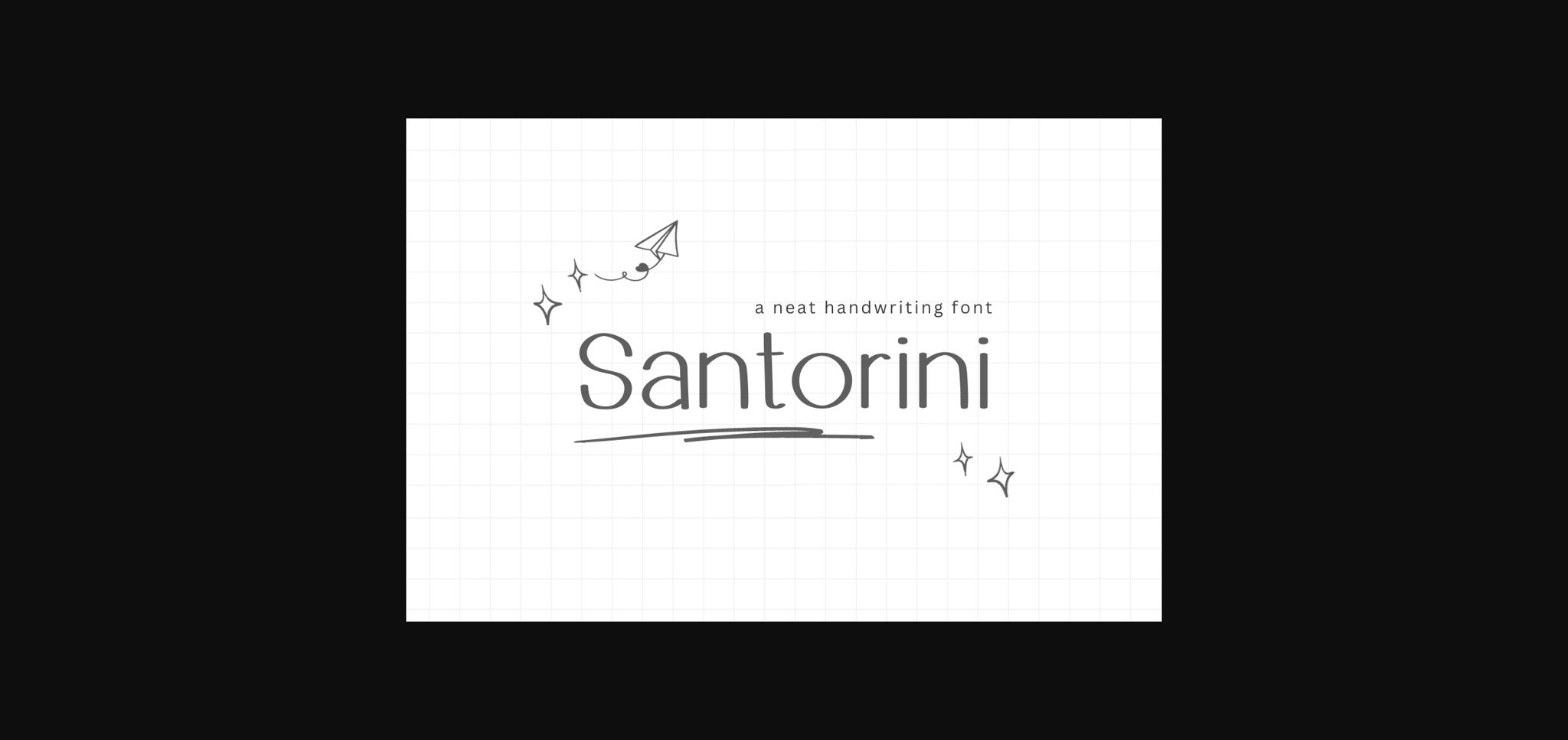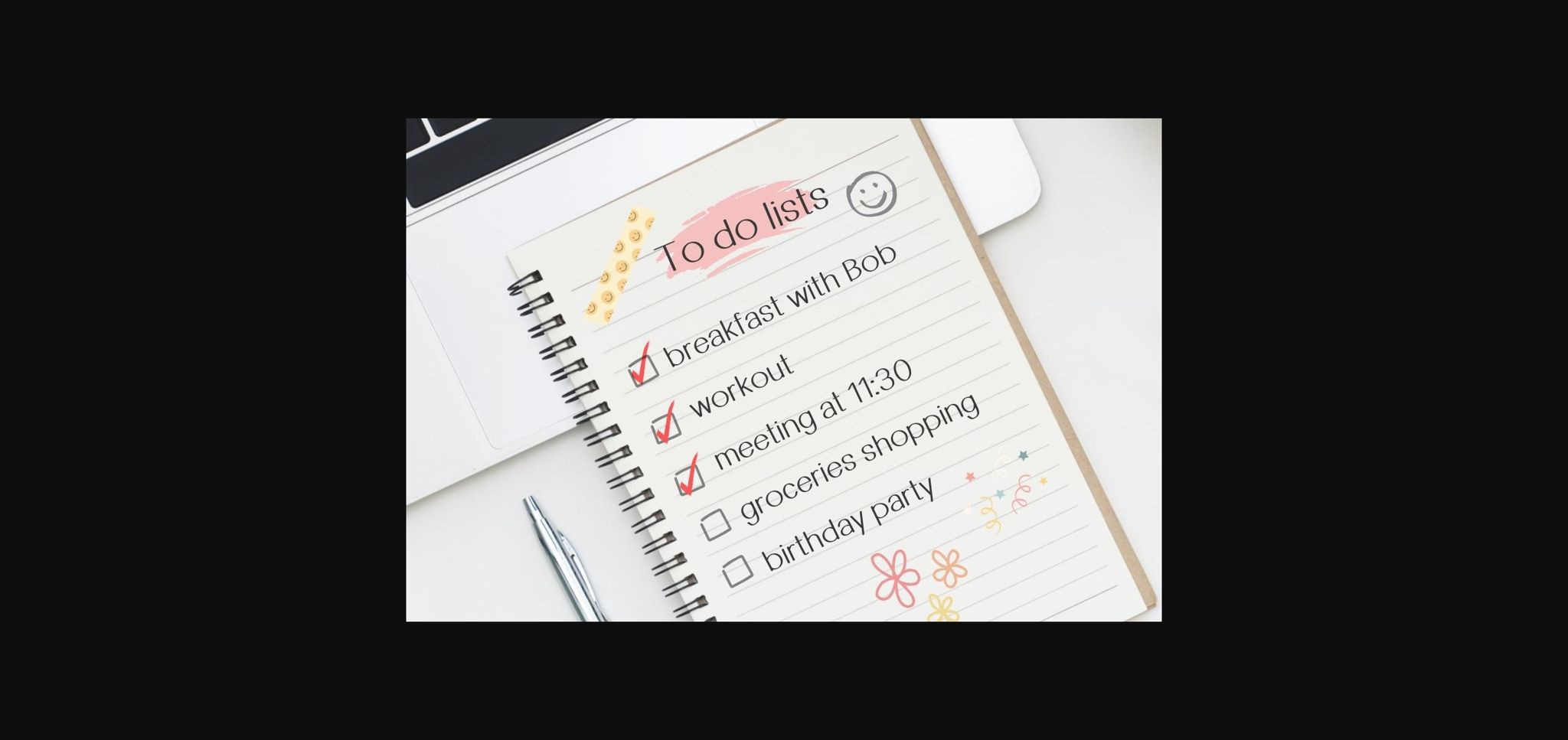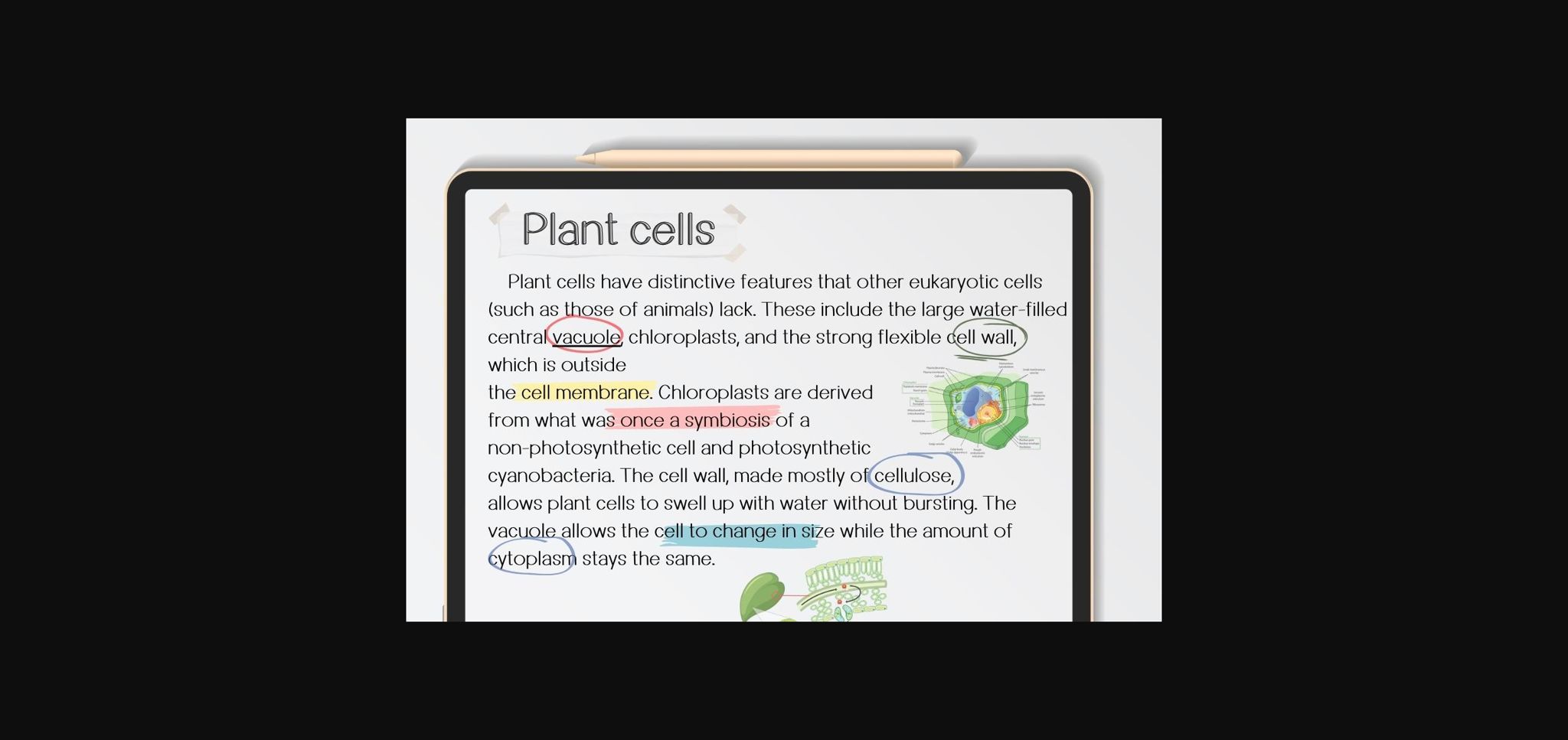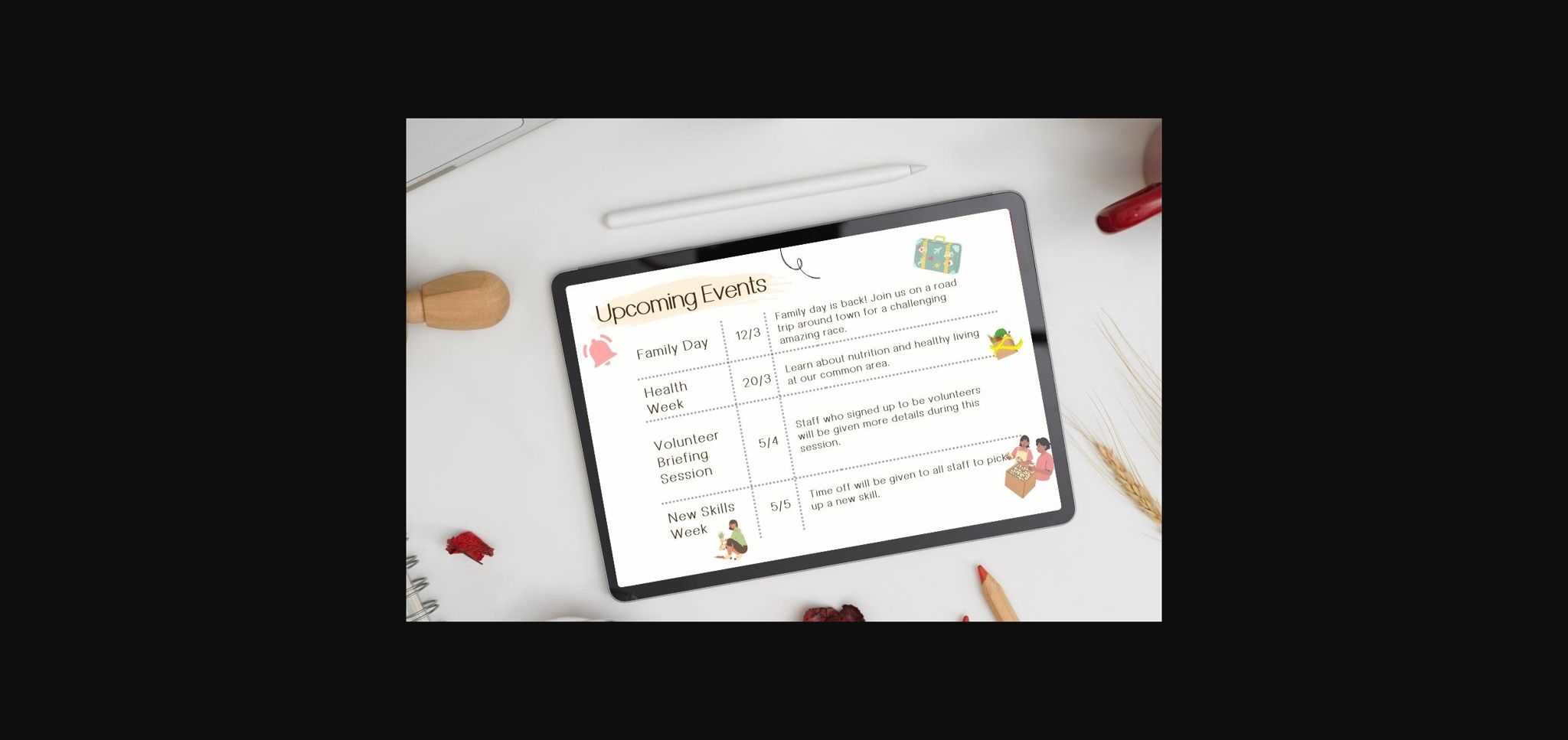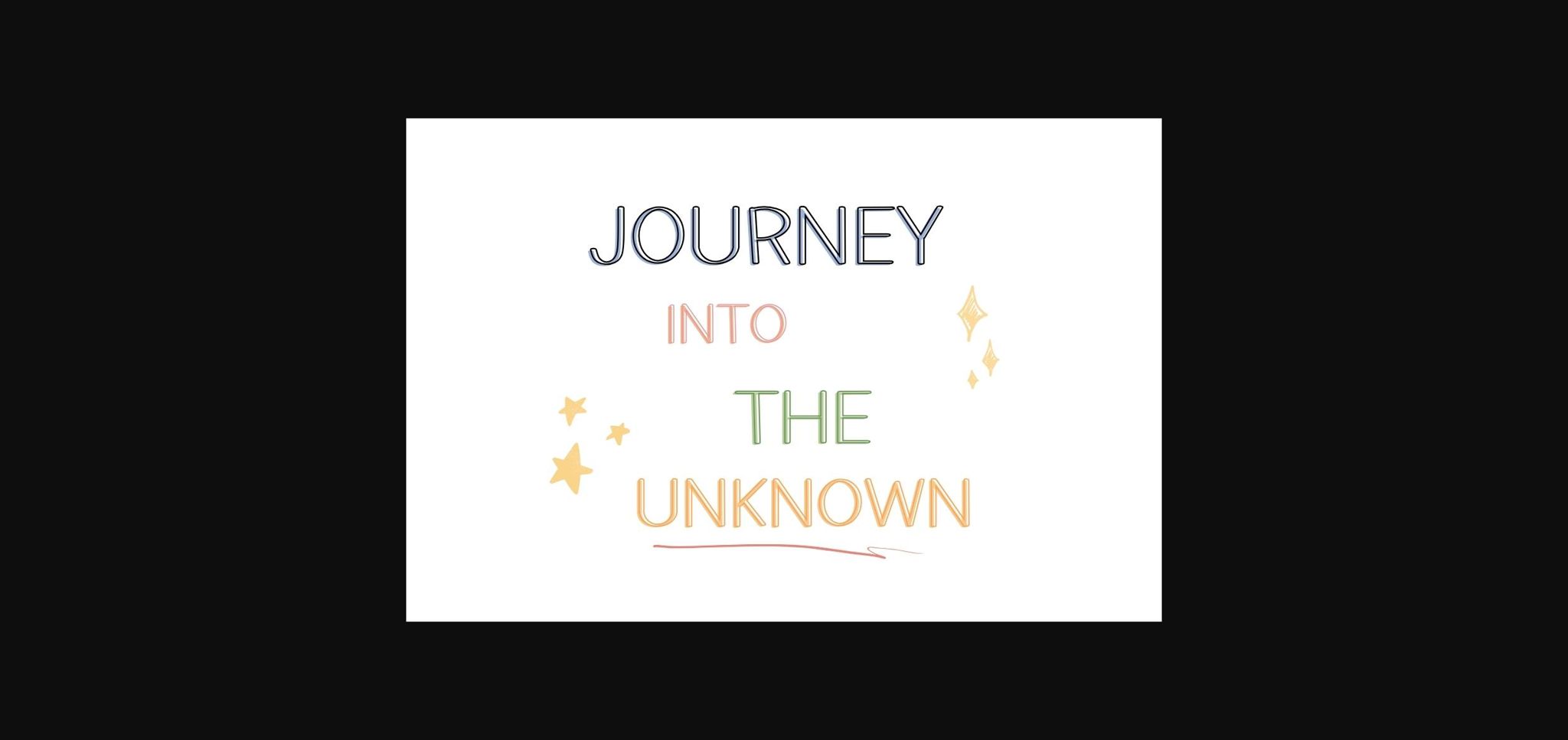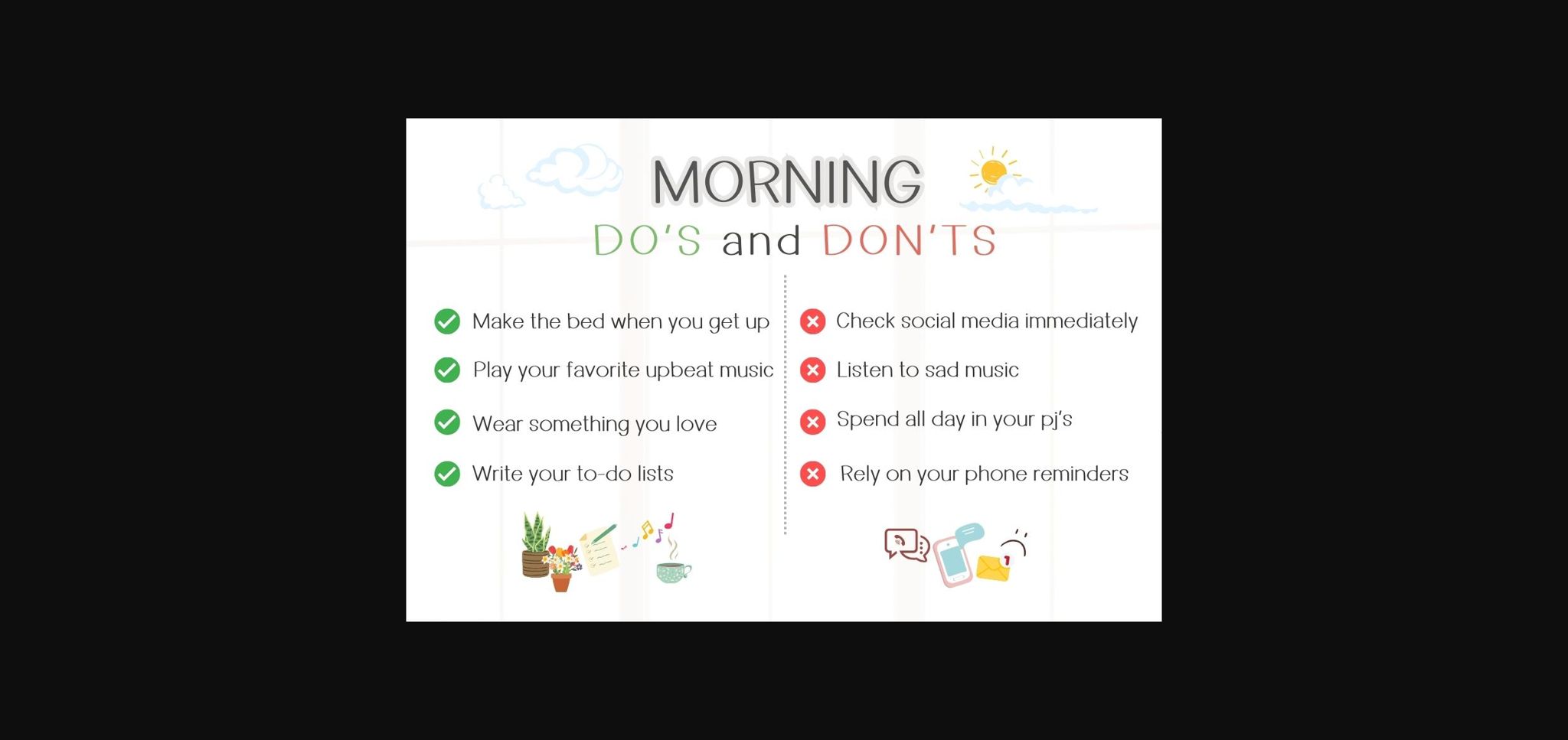
About Santorini Font
Santorini is a cute romantic sans serif typeface. It works best when used in headlines. Its delicate construction and the contrast between the skeleton of the glyphs render it so chic and elegant. It was thought to be used in a headline such as magazine covers, packaging design, perfume design, and cosmetics. Use it confidently in your creation and you will notice the incredible touches it can add to your creations.